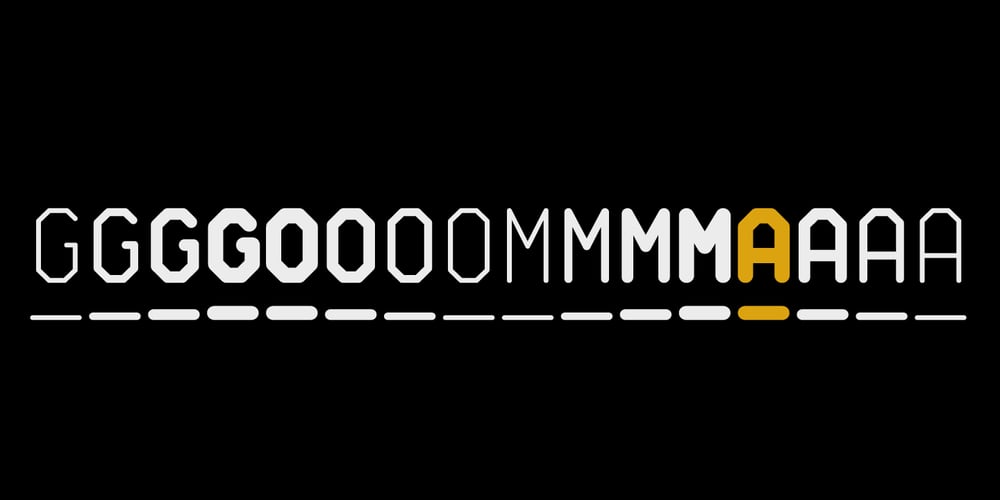
Goma Mono
Goma Mono font
Goma Mono Font Family was designed by Daniel Uzquiano and published by Daniel Uzquiano. Goma Mono contains 10 styles and family package options. Goma Mono is a display monospaced rounded sans serif font built in ten styles. This family, with five weights, covers a wide variety of character due to the large difference in thickness. The typeface can be used perfectly in display sizes and logos. Goma Mono is released with 414 glyphs and includes Open Type features.